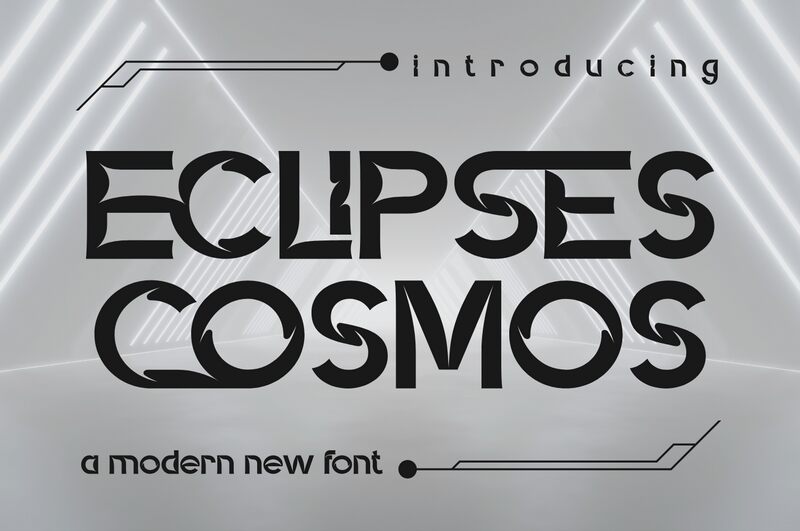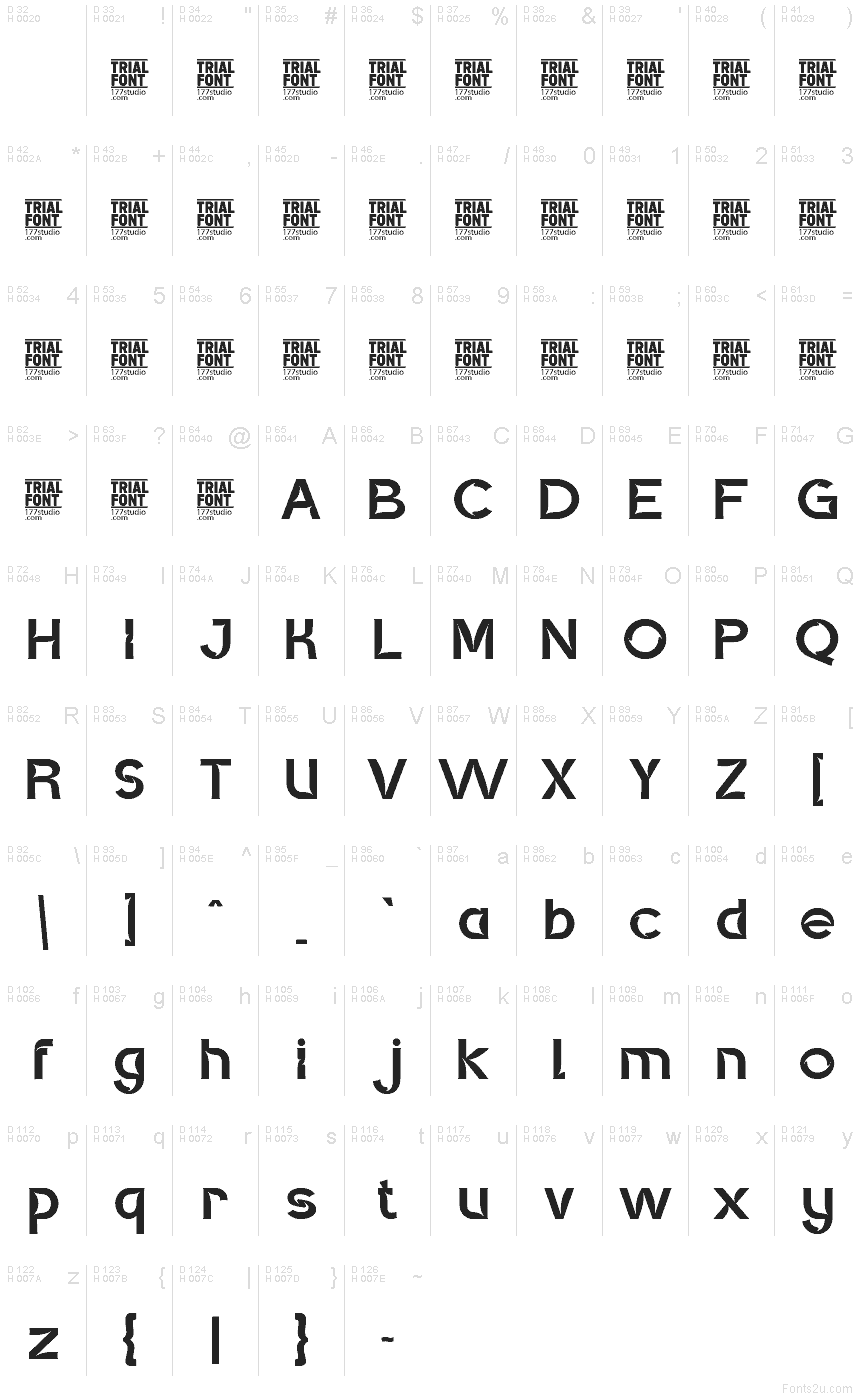
Eclipses Cosmos font by 177Studio is a free techno display typeface that looks like it was carved from orbiting shapes and negative space. Each letter feels sliced by a clean circular arc, creating a looping, eclipse-like rhythm that’s both futuristic and surprisingly readable. The strokes are bold, the gaps are precise, and the whole wordmark snaps together like a sleek sci‑fi logo with a strong, mechanical pulse.
Using Eclipses Cosmos, you get a ready-made sense of motion and technology that shines on game titles, sci‑fi book covers, movie posters, DJ branding, tech event graphics, and futuristic packaging. This free font works beautifully in large sizes where its circular cuts and smooth curves can really breathe. Pair it with a simple geometric sans for body copy, and let Eclipses Cosmos carry the headline or logo with a clean, space-age edge.